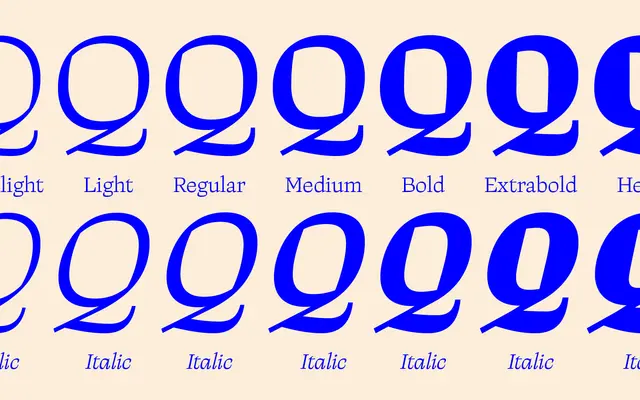
Quark
Zetafonts · Mario De Libero · 2023
A geometric serif family by Mario De Libero that treats the internal space of letterforms as an active design element, particularly in the heavier weights.
Designed by Mario De Libero with contributions from Francesco Canovaro, Cosimo Lorenzo Pancini and Andrea Tartarelli, Quark spans seven weights from Extralight to Heavy, each with a matching italic, plus two variable font files. The family's defining characteristic is its bold interpretation of internal counter space, which shifts from conventional emptiness into deliberate geometric form as weights increase. Latin coverage extends to 201 languages across 443 glyphs, with OpenType features including case-sensitive forms and stylistic alternates.
Quark is a serif typeface that combines traditional graceful serifs with geometric treatment of internal letter space, making it a geometric serif rather than a purely classical or transitional style.